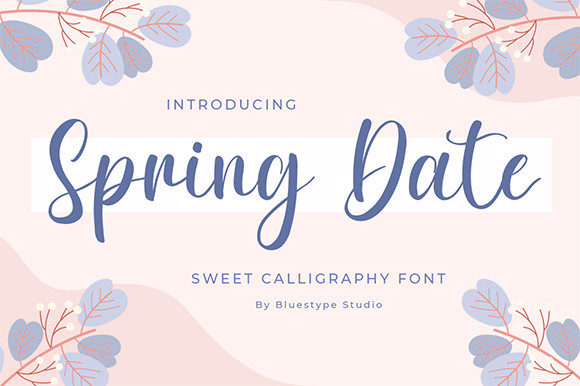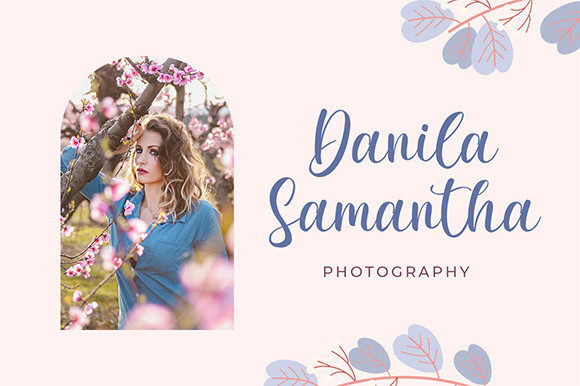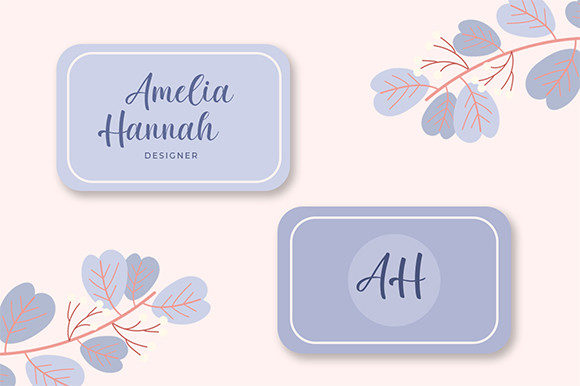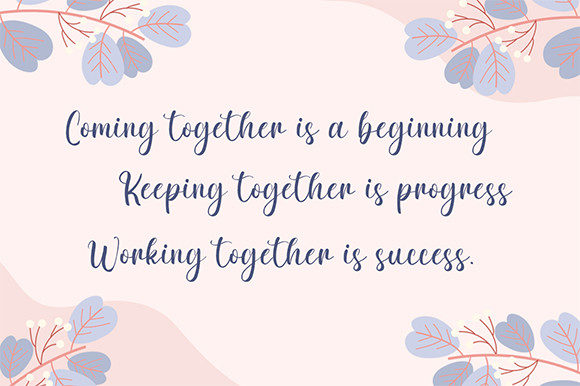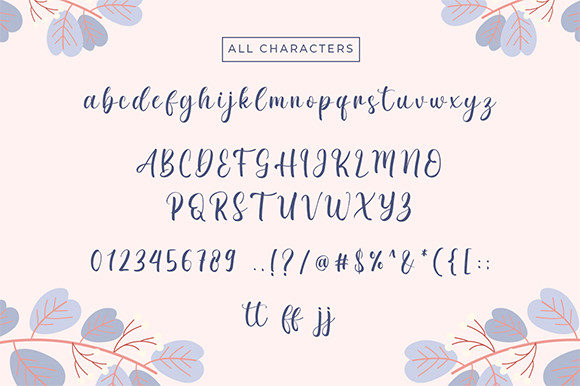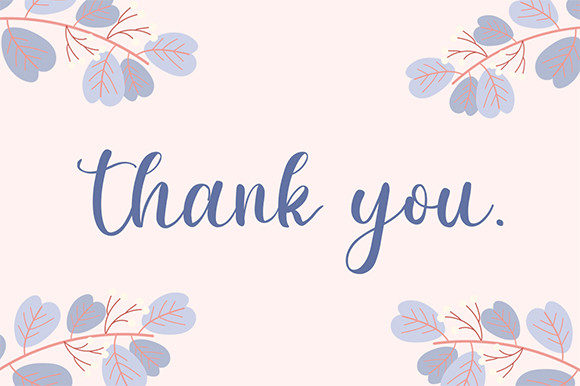
Spring Date Font
About Spring Date Font
Spring Date is a graceful, flowing and sweet script font. It looks stunning on wedding invitations, thank you cards, quotes, greeting cards, logos, business cards and every other design which needs a customized touch.